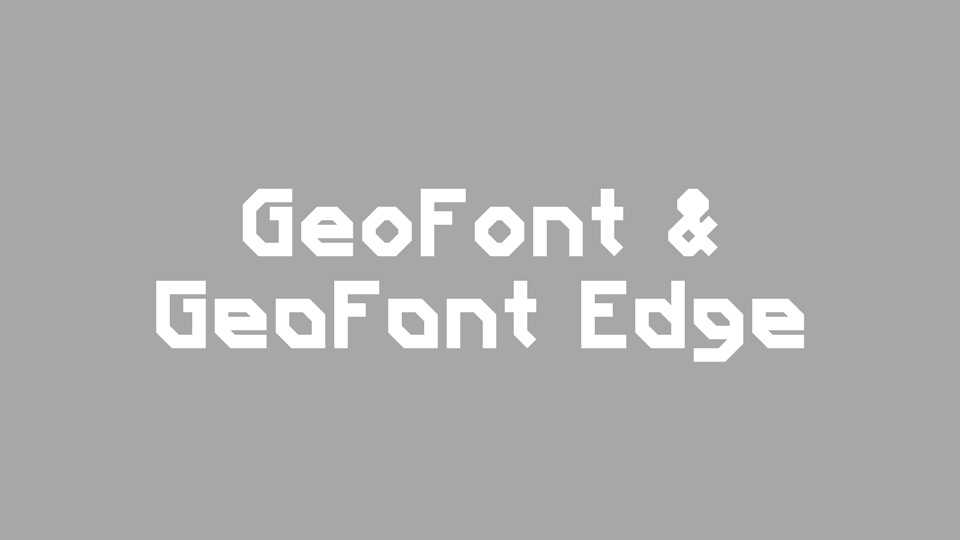
GeoFont Typeface › Fontesk – Download Grátis
Download GeoFont font, a simple display typeface with the goal of being pleasant to look at in a variety of use cases. Two versions of the font currently exist: GeoFont, and GeoFont Edge. The original version looks the most like Mojangles, while Edge has a more futuristic/cyber feel to it.
Designer: Xetheon